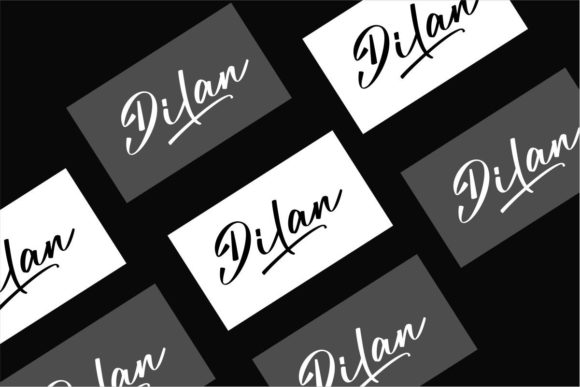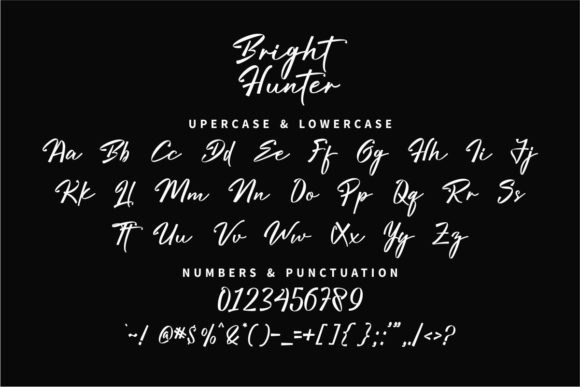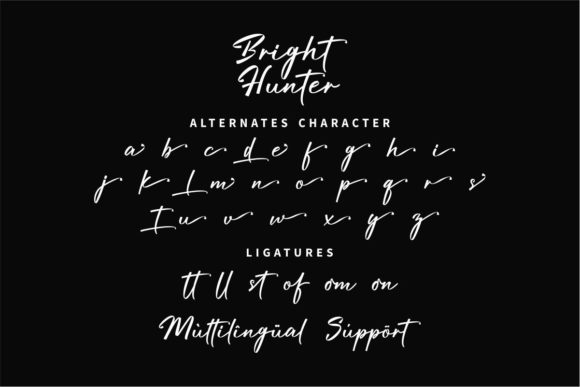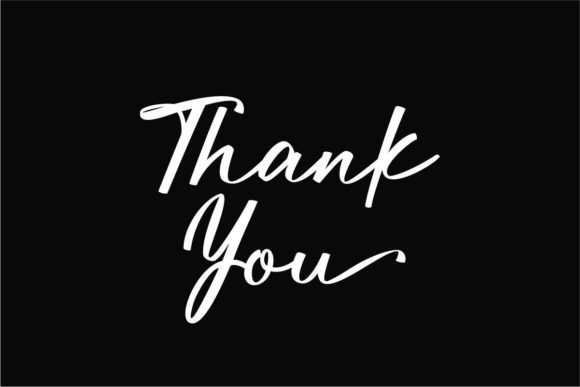
The Perfect Blend of Whimsy and Elegance: Bright Hunter Font
As a designer, have you ever found yourself staring at a blank page, searching for the perfect font to bring your creative vision to life? It’s that moment of frustration and excitement when the right font can make all the difference. For those who crave a relaxed and cursive handwritten look, the Bright Hunter Font is here to save the day.
Bright Hunter Font is a beautiful, PUA-encoded font that offers a range of design possibilities. Its gentle curves and swashes will add a touch of elegance to your projects, making it perfect for everything from wedding invitations to branding materials. With Bright Hunter Font, designers can easily access all the glyphs and swashes they need, giving their work a professional and polished finish.
Whether you’re a seasoned pro or just starting out, Bright Hunter Font is a valuable addition to any designer’s toolkit. Its versatility and ease of use make it an ideal choice for any project that requires a touch of whimsy and sophistication.
- Unique Characteristics: Bright Hunter Font features a unique, modern design with a mix of geometric and organic elements, creating a visually striking effect.
Bright Hunter Font Review
As a designer, I was excited to try out the Bright Hunter Font. Here’s my honest review:
- The font’s unique blend of modern and vintage elements gives it a distinctive look that’s perfect for branding and advertising.
- The font’s bold and playful feel makes it ideal for titles, headings, and other display text.
- The font family includes a range of weights and styles, making it easy to customize and adapt to different design needs.
- The font may be too flashy or over-the-top for more conservative or traditional design projects.
- The font’s irregular letterforms can make it difficult to read at smaller font sizes.
- The font may not be suitable for body text or large blocks of text, as it can become overwhelming.
Overall, the Bright Hunter Font is a great choice for designers who want to add some personality and flair to their projects. While it may have some limitations, it’s a versatile and eye-catching font that’s sure to turn heads.
The Bright Hunter font is ideal for modern designs, such as:
- Website headers and footers